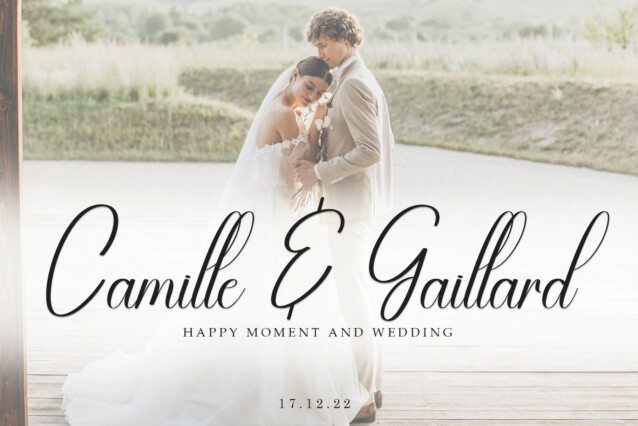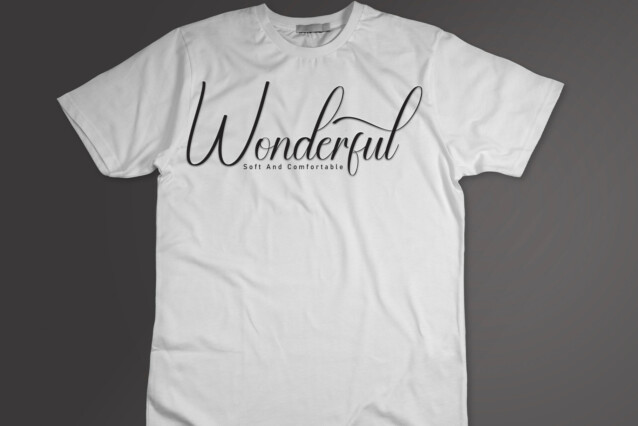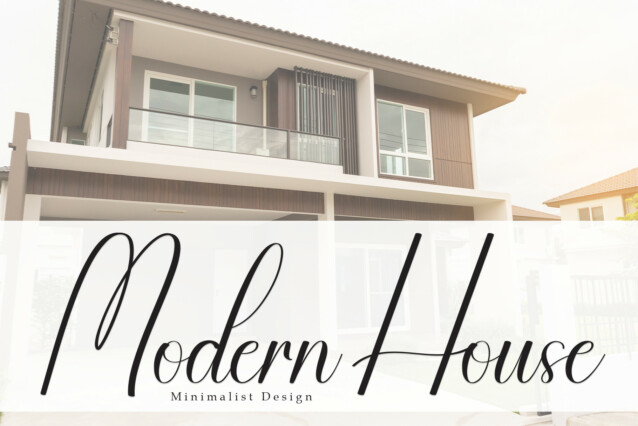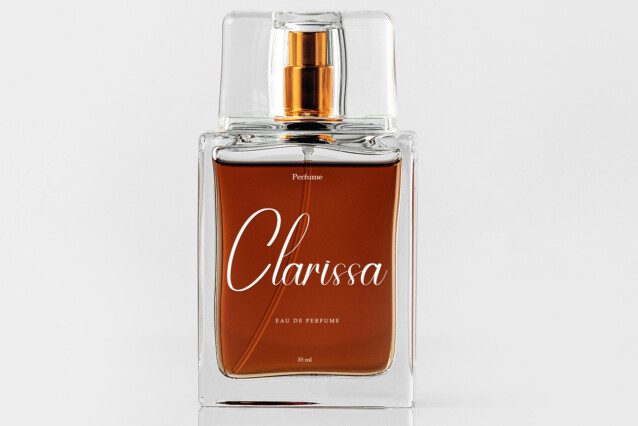
Overglow Script Font
Overglow Script Font is a new modern script calligraphy typeface with its own unique flow and elegant personality. Is suitable for all your design project needs such as logo design, branding, covers, posters, and more.